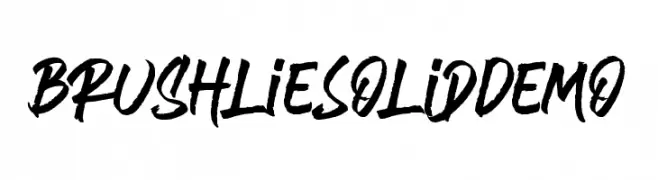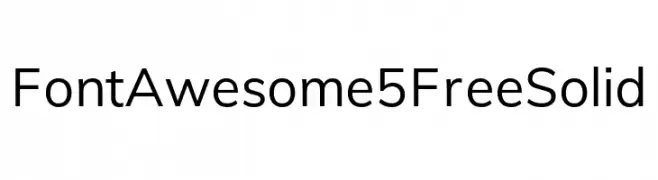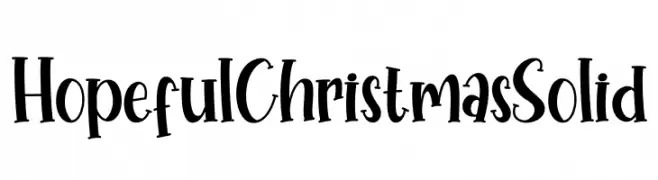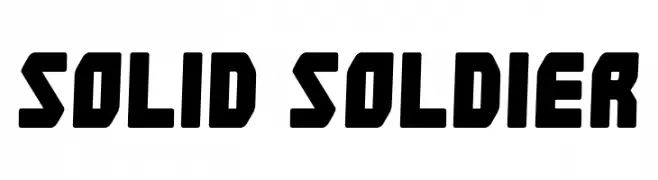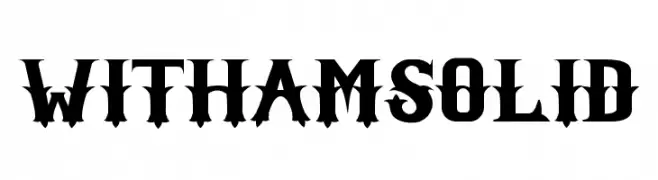
A modern sans-serif font with clean lines and geometric shapes.
A playful and festive font with whimsical, slightly irregular letterforms and moderate contrast.
A bold, brush-style font with dynamic, handcrafted strokes.
A playful and whimsical font with bold, expressive characters and dynamic contrast.
A playful, hand-drawn font with a chalk-like appearance, perfect for creative projects.
A bold, decorative font with gothic influences and sharp, angular serifs.
A bold, expressive handwritten font with dynamic strokes and artistic flair.
A bold, expressive script font with a dynamic, handwritten style.
A bold, pixelated font ideal for retro and digital-themed projects.
A bold, modern font with blocky, angular characters.